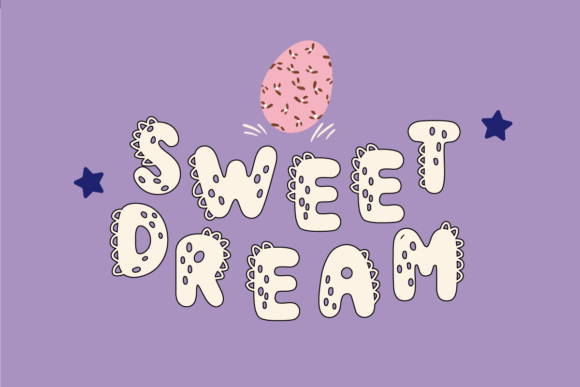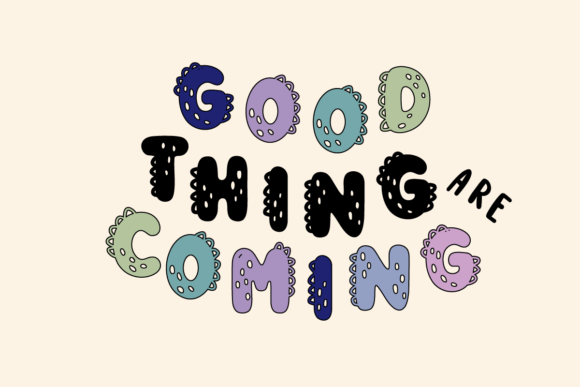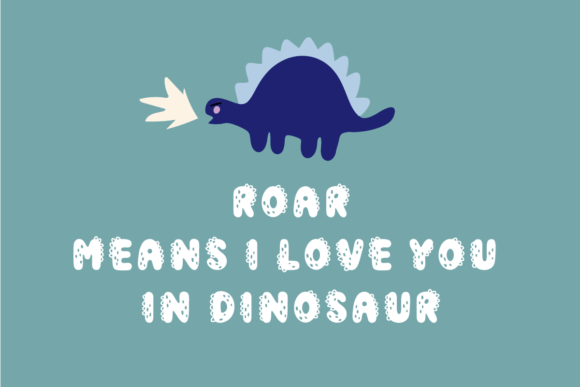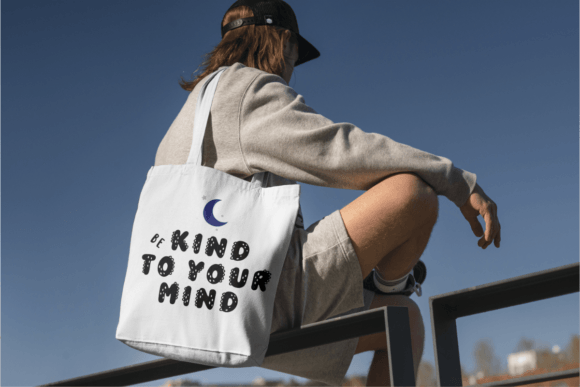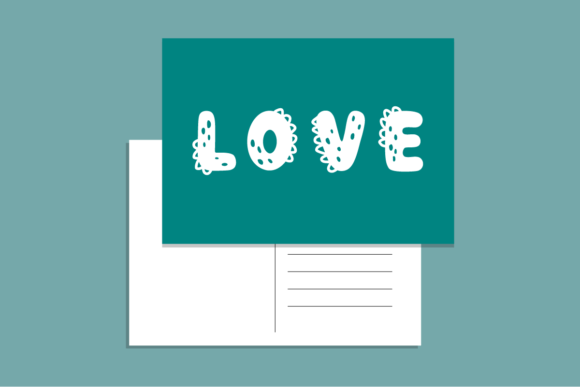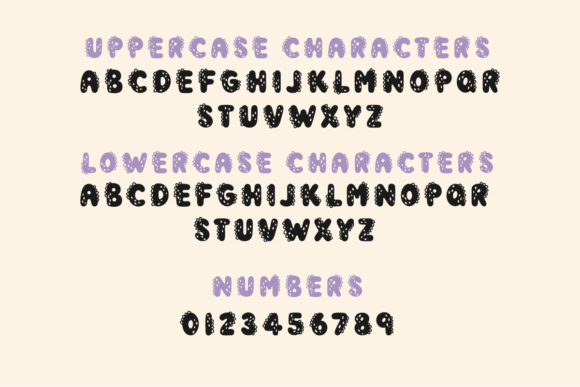
Introduction to Lazy Dino Font Font
Fonts play a crucial role in design, and the Lazy Dino Font font is a typeface that brings both character and versatility to any project. Whether you’re working on a branding project, a website, or a print design, the Lazy Dino Font font offers a unique style that can elevate your work.
LAZY DINO is a playful decorative font with a dinosaur style.
Perfect for lovely projects, shirts, lively designs, invitation cards, mugs, stickers, playful quotes, posters, logos, greeting cards, packaging, decorating illustrations and so much more .
Key Features of Lazy Dino Font Font
Why Choose Lazy Dino Font Font?
The Lazy Dino Font font is more than just a typeface – it’s a design tool that helps you communicate your message with style and clarity. Its unique character set and versatile design make it suitable for a wide range of applications, from elegant invitations to bold headlines.
With its carefully crafted letterforms and balanced proportions, the Lazy Dino Font font ensures readability and visual appeal across all mediums.
What makes Lazy Dino Font font special?
The Lazy Dino Font font stands out with its unique design, exceptional readability, and versatility across various design applications.